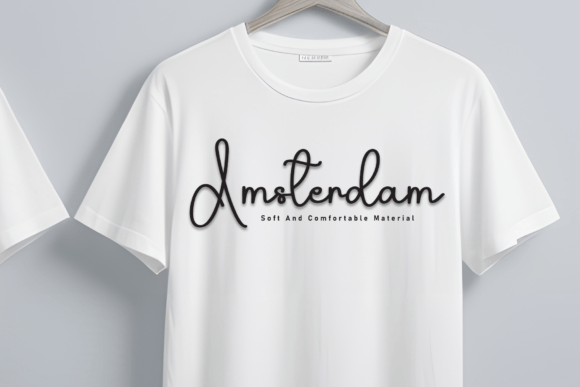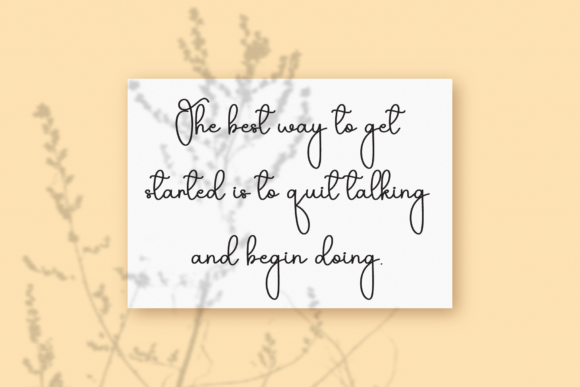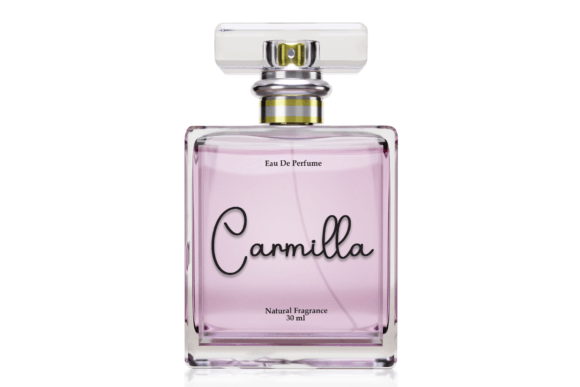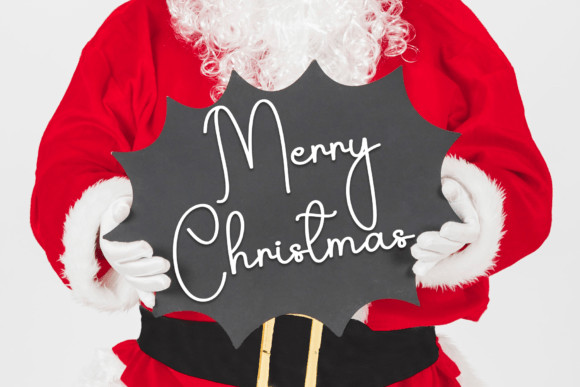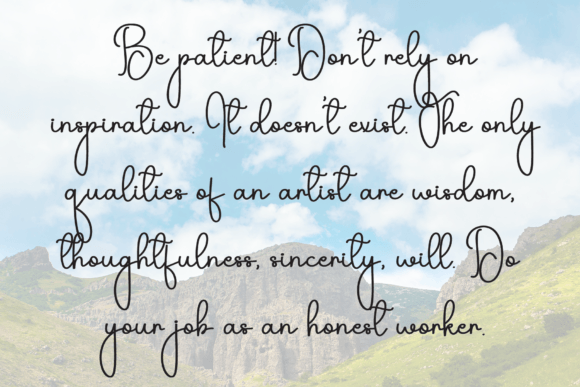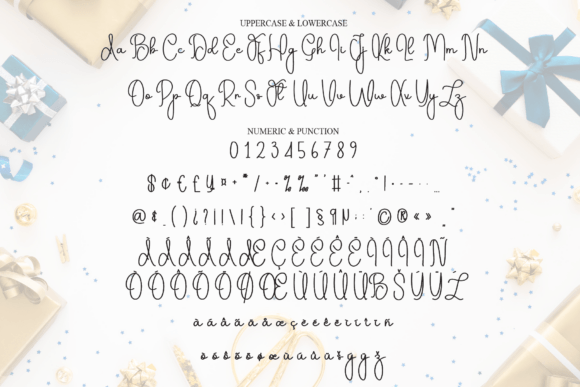
Introducing Birthday Font: The Ultimate Companion for Whimsical Designs
Are you tired of using the same old fonts for your wedding invitations, birthday cards, and other celebratory designs? Look no further! Our delightful, heartwarming handwritten display typeface, Birthday Font, is here to add a touch of playful warmth and whimsy to your creations. With its adorably sweet and good-natured persona, this font is the perfect companion for designers and crafters who want to infuse their designs with joy, charm, and a dash of fun.
The Perfect Blend of Playfulness and Sophistication
Birthday Font is more than just a font – it’s a design element that brings your creative vision to life. This beautiful handwritten typeface dances on the line between playful whimsy and elegant sophistication, making it perfectly suited for any project that craves a touch of warmth and personality. Whether you’re designing a wedding invitation, a birthday card, or a party banner, Birthday Font is sure to add a delightful dose of fun and charm to your design.
What Makes Birthday Font So Special?
So, what sets Birthday Font apart from other fonts? Here are just a few reasons why this font is a must-have for designers and crafters:
- Unique and Whimsical Design: Birthday Font features a one-of-a-kind, handwritten design that’s sure to capture the attention of your audience. Its playful and whimsical feel makes it perfect for designs that require a touch of personality and charm.
- Adorably Sweet and Good-Natured: This font has a sweet and good-natured persona that’s sure to bring a smile to your face. Its friendly and approachable feel makes it perfect for designs that require a warm and inviting tone.
- Versatile and Flexible: Birthday Font is a versatile font that can be used for a wide range of design projects, from wedding invitations and birthday cards to party banners and social media graphics.
- Elegant and Sophisticated: Despite its playful and whimsical feel, Birthday Font also has an elegant and sophisticated side that’s perfect for designs that require a touch of refinement and luxury.
How to Use Birthday Font in Your Designs
Using Birthday Font in your designs is easy! Here are a few tips to get you started:
- Pair it with Other Fonts: Birthday Font pairs perfectly with other fonts, including serif and sans-serif fonts. Try pairing it with a bold font for a playful and eye-catching design.
- Use it for Headlines and Titles: Birthday Font is perfect for headlines and titles, where its playful and whimsical feel can really shine.
- Add it to Your Digital Designs: Birthday Font can be used for both print and digital designs, making it perfect for social media graphics, party invitations, and more.
- Experiment with Different Colors: Birthday Font looks great in a variety of colors, from bright and bold to soft and pastel. Experiment with different colors to find the perfect look for your design.
Birthday Font is perfect for designers and crafters who want to add a touch of personality and charm to their designs. Whether you’re creating wedding invitations, birthday cards, or party banners, this font is sure to bring a smile to your face and a touch of whimsy to your designs.
In conclusion, Birthday Font is a delightful, heartwarming handwritten display typeface that’s perfect for designers and crafters who want to add a touch of playful warmth and whimsy to their designs. With its unique and whimsical design, adorably sweet and good-natured persona, and versatile and flexible feel, this font is sure to become a favorite in your design arsenal. So why wait? Download Birthday Font today and start creating designs that bring joy, charm, and a dash of fun to your audience!